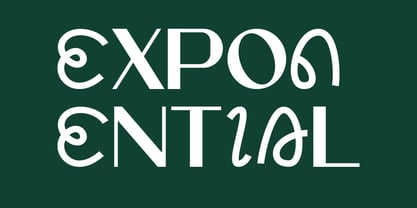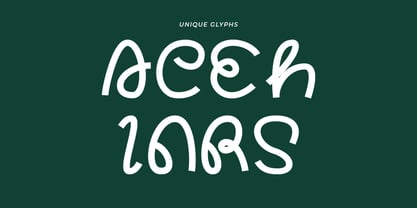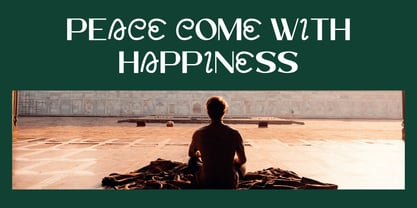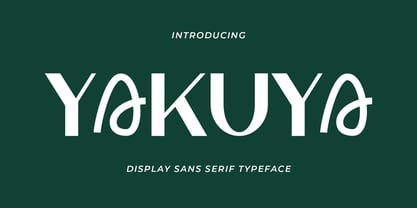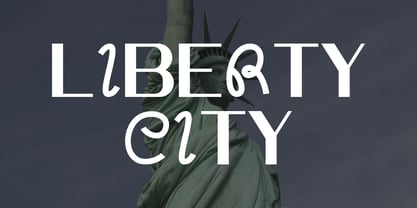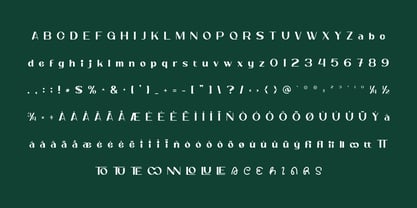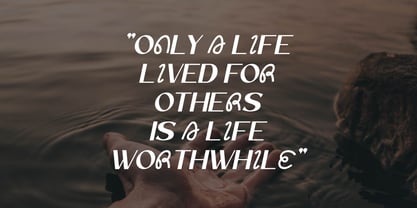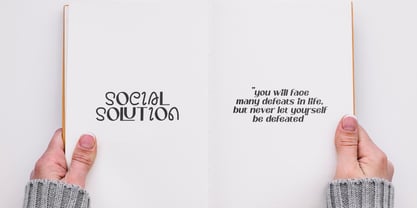
Yakuya
by Artiveko
The Yakuya Font Family was designed by Iwan Alwan and published by Artiveko. Yakuya contains 2 styles and family package options. More about this family
Yakuya is a modern sans serif font that blends creativity with luxurious elegance. Featuring clean lines, refined curves, and distinctive character shapes, Yakuya is designed to bring a premium feel to logos, fashion branding, product packaging, editorials, and high-end digital projects.
Its creative construction makes it stand out, while the minimalist elegance ensures timeless versatility. Yakuya works beautifully for luxury brands, lifestyle content, invitations, or visual identities that demand both sophistication and originality.
The font includes uppercase and lowercase letters, numerals, punctuation, multilingual support, and stylistic alternates for creative flexibility. Its sleek proportions also pair well with script or serif fonts, giving you endless design possibilities.
Elevate your typography with Yakuya — the creative luxury sans serif font that combines modern innovation with refined style.
Designers: Iwan Alwan
Foundry: Artiveko